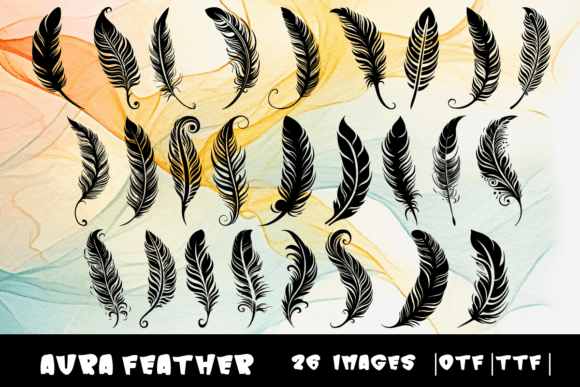
Unlock Your Creativity with Aura Feather Font
Have you ever been in the middle of a design project, and suddenly, you’re stuck on finding the perfect font? I recall a similar experience while working on a whimsical branding project for a boutique client. The brief was to create a logo that exuded elegance and playfulness. As I scrolled through font libraries, I stumbled upon a unique dingbat font that transformed my design. Today, I’m excited to introduce you to a similar gem – Aura Feather Font!
What is Aura Feather Font?
Aura Feather Font is a captivating digital product that offers a set of 26 characters from A to Z, each adorned with ethereal and enchanting feather designs. This font is perfect for designers, crafters, and creative hobbyists looking to add a touch of magic to their projects. The package includes both OTF and TTF formats, making it easy to use in various design software.
- ✨ Unique and captivating feather designs for each character
- 🌟 Perfect for projects that require a touch of elegance and playfulness
- 💫 Great for branding, logos, and social media graphics
⚠️ One thing to note is that Aura Feather Font is a dingbat font, which means it’s designed specifically for decorative purposes. It may not be suitable for body text or long-form content. Additionally, some characters may not be immediately recognizable due to their stylized feather designs.
🤔 Another thing to consider is that the font may not work well in certain design contexts, such as small font sizes or low-resolution images.
The Designer Inspiration Behind Aura Feather Font
The creator of Aura Feather Font drew inspiration from the mystical and enchanting world of feathers. With a passion for typography and illustration, the designer aimed to craft a font that would evoke a sense of wonder and magic. The result is a beautiful and captivating font that’s perfect for designers and crafters looking to add a touch of elegance and playfulness to their projects.